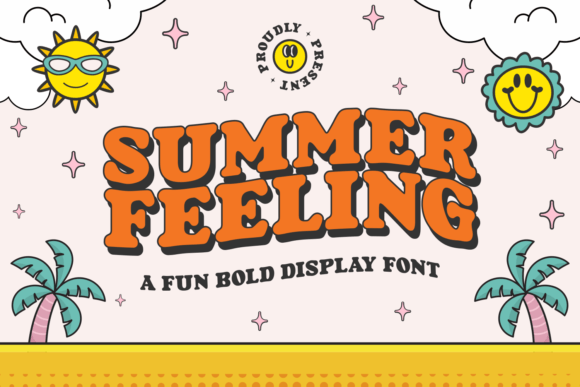
Summer Feeling Font: The Perfect Blend of Playful and Professional
As the temperature rises and the sun shines brighter, our designs should reflect the carefree and vibrant spirit of summer. Introducing the Summer Feeling font, a bold and expressive typeface that’s perfect for a wide range of design projects. With its thick and solid lines, conservative bends, and balanced fusion of playful and professional elements, this font is sure to make a statement.
The Characteristics of Summer Feeling Font
The Summer Feeling font boasts a unique set of characteristics that make it stand out from other typefaces. Its thick and solid lines ensure that the text is easy to read, even from a distance. The conservative bends and carefully crafted curves prevent the font from feeling overwhelming or too playful, making it perfect for designs that require a level of professionalism.
Key Features:
- Bold and Expressive: The Summer Feeling font makes a statement with its bold and expressive design.
- Easy to Read: The thick and solid lines ensure that the text is easy to read, even from a distance.
- Conservative Bends: The carefully crafted curves and bends prevent the font from feeling overwhelming or too playful.
- Balanced Fusion: The Summer Feeling font strikes the perfect balance between playful and professional elements.
The Design Philosophy Behind Summer Feeling Font
The Summer Feeling font is designed to evoke the feeling of warmth and freedom that comes with the summer season. The design philosophy behind this font is centered around creating a typeface that’s both playful and professional, making it perfect for a wide range of design projects.
The designers aimed to create a font that’s both bold and elegant, with a unique personality that sets it apart from other typefaces. The result is a font that’s both eye-catching and easy to read, making it perfect for designs that require a level of sophistication.
The Psychology of Summer Feeling Font
The Summer Feeling font has a unique psychological impact on the viewer. The bold and expressive design can evoke feelings of:
- Excitement: The font’s bold design can create a sense of excitement and energy.
- Confidence: The font’s professional elements can evoke feelings of confidence and trust.
- Creativity: The font’s playful elements can inspire creativity and imagination.
Perfect Use Cases for Summer Feeling Font
The Summer Feeling font is versatile and can be used in a wide range of design projects. Here are some perfect use cases for this font:
1. Summer-themed Designs
The Summer Feeling font is perfect for summer-themed designs, such as:
- Beach posters: Create eye-catching beach posters with the Summer Feeling font.
- Summer festival flyers: Use the font to create vibrant and playful summer festival flyers.
- Summer-themed social media graphics: Add a touch of summer fun to your social media graphics with this font.
2. Branding and Logo Design
The Summer Feeling font is also perfect for branding and logo design projects, such as:
- Summer-themed restaurants: Use the font to create a logo for a summer-themed restaurant.
- Beachwear brands: The font is perfect for creating a logo for a beachwear brand.
- Summer camps: The Summer Feeling font can be used to create a logo for a summer camp.
3. Advertising and Marketing Materials
The Summer Feeling font can also be used in advertising and marketing materials, such as:
- Summer-themed ads: Use the font to create eye-catching summer-themed ads.
- Promotional materials: The font is perfect for creating promotional materials, such as brochures and flyers.
- Email newsletters: Add a touch of summer fun to your email newsletters with the Summer Feeling font.
Tips for Using Summer Feeling Font
Here are some tips for using the Summer Feeling font:
1. Use it in Large Sizes
The Summer Feeling font is perfect for large-scale designs. Use it in large sizes to make a statement and grab attention.
2. Pair it with Other Fonts
The Summer Feeling font can be paired with other fonts to create a unique and interesting design. Try pairing it with a sans-serif font for a contrasting look.
3. Experiment with Colors
The Summer Feeling font can be used with a wide range of colors. Experiment with different colors to find the perfect combination for your design.
The Summer Feeling font is a bold and expressive typeface that’s perfect for a wide range of design projects. With its thick and solid lines, conservative bends, and balanced fusion of playful and professional elements, this font is sure to make a statement. Whether you’re designing a summer-themed poster, a logo for a beachwear brand, or an email newsletter, the Summer Feeling font is the perfect choice.